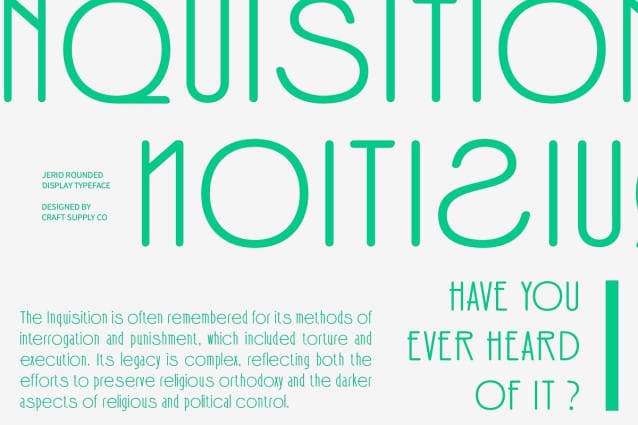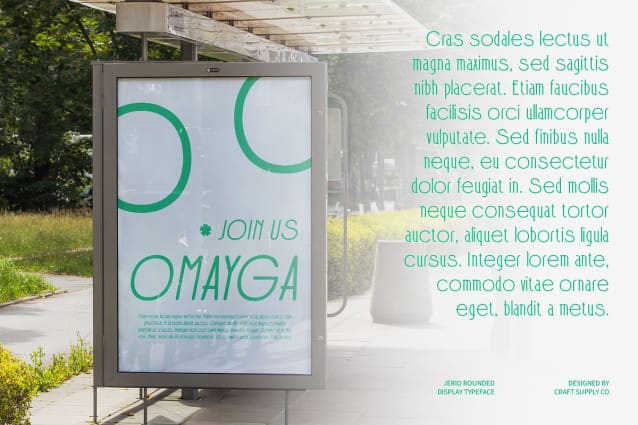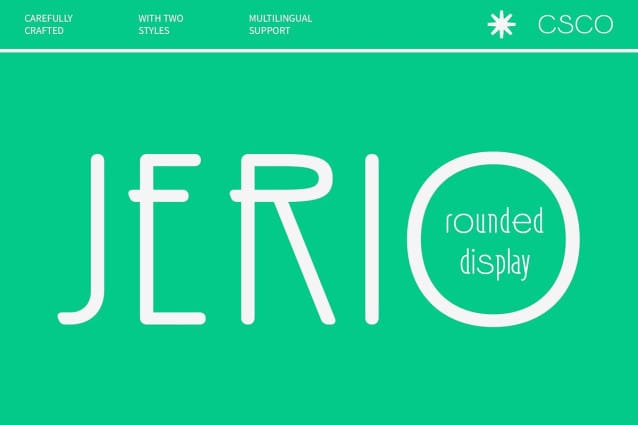
Jerio Rounded Font
Jerio Rounded Font is a contemporary sans-serif font that exudes elegance through its slim, minimalist design. Characterized by its sleek, slender forms, the font offers a refined and space-efficient appearance that enhances readability while maintaining a clean, uncluttered look.
Graceful and Space-Efficient The slim profile of Jerio Rounded provides a sophisticated and understated elegance, making it perfect for designs that require a touch of class without overwhelming the viewer. The minimalist approach ensures that each character is clear and easily readable, while the rounded edges introduce a subtle softness that adds warmth to the overall design.
Friendly and Inviting The rounded edges of Jerio Rounded create a friendly and approachable atmosphere, making the font ideal for projects where a welcoming and engaging tone is essential. This softness contrasts with the slim, minimalist structure, resulting in a font that balances modern efficiency with a warm, inviting character.
Versatile for Contemporary Needs Jerio Rounded excels in a variety of contemporary applications, from branding and user interfaces to marketing materials. Its clean, modern aesthetic makes it a versatile choice for digital and print designs, providing a harmonious blend of high readability and stylish simplicity. This font achieves a perfect balance between modernity and warmth, making it suitable for a range of design needs.